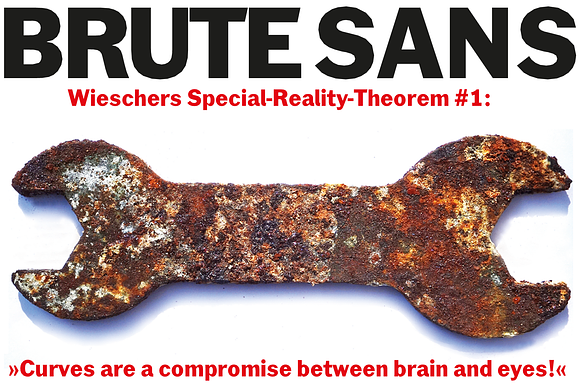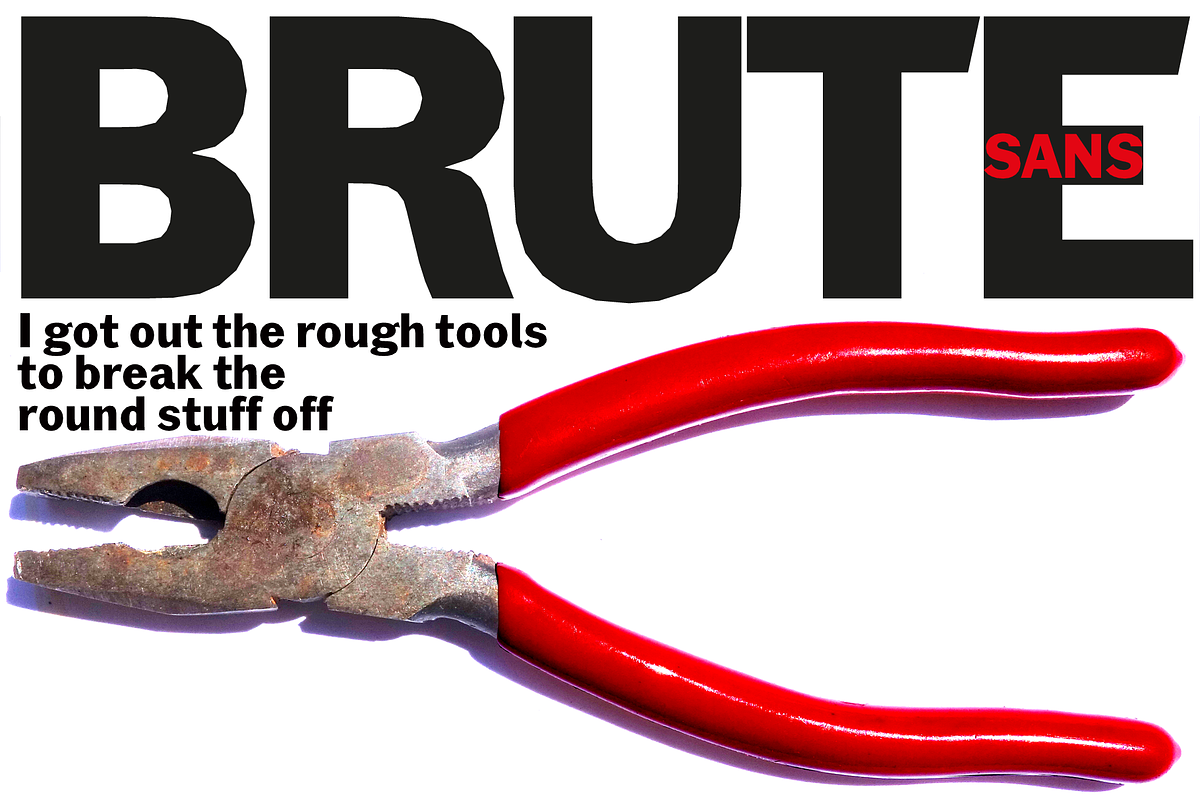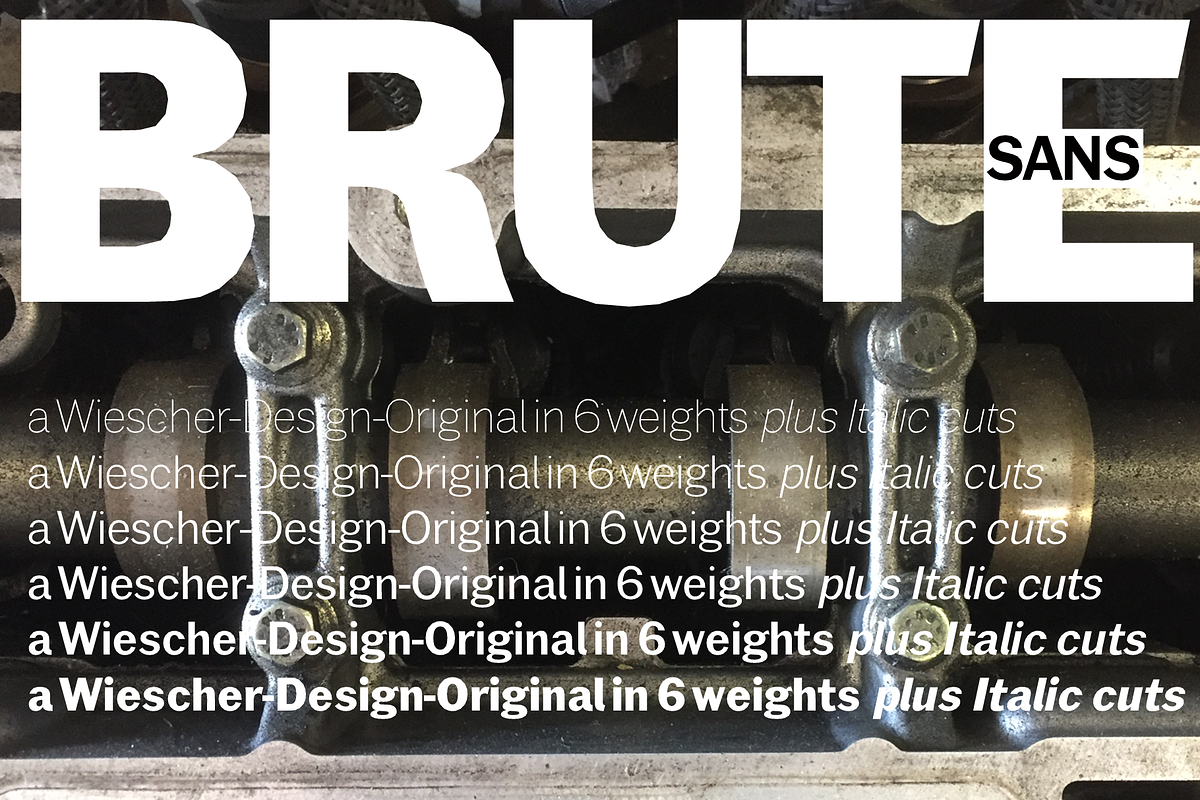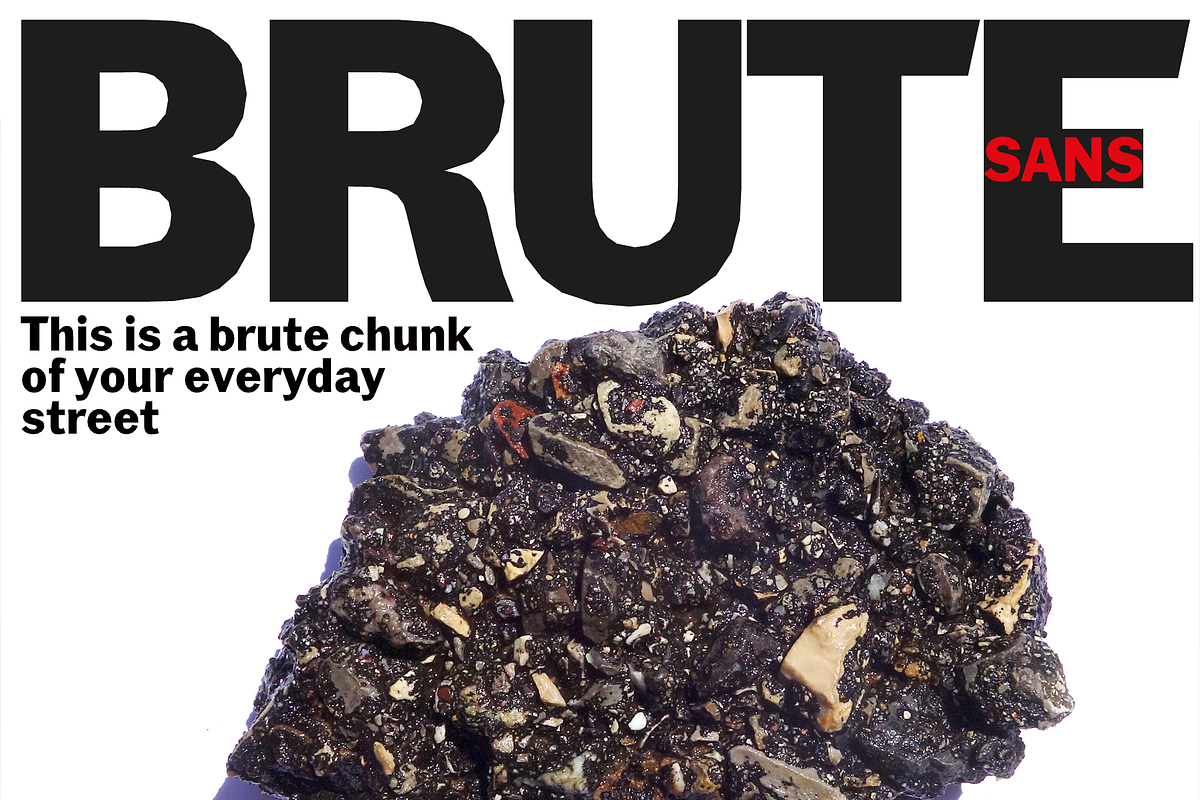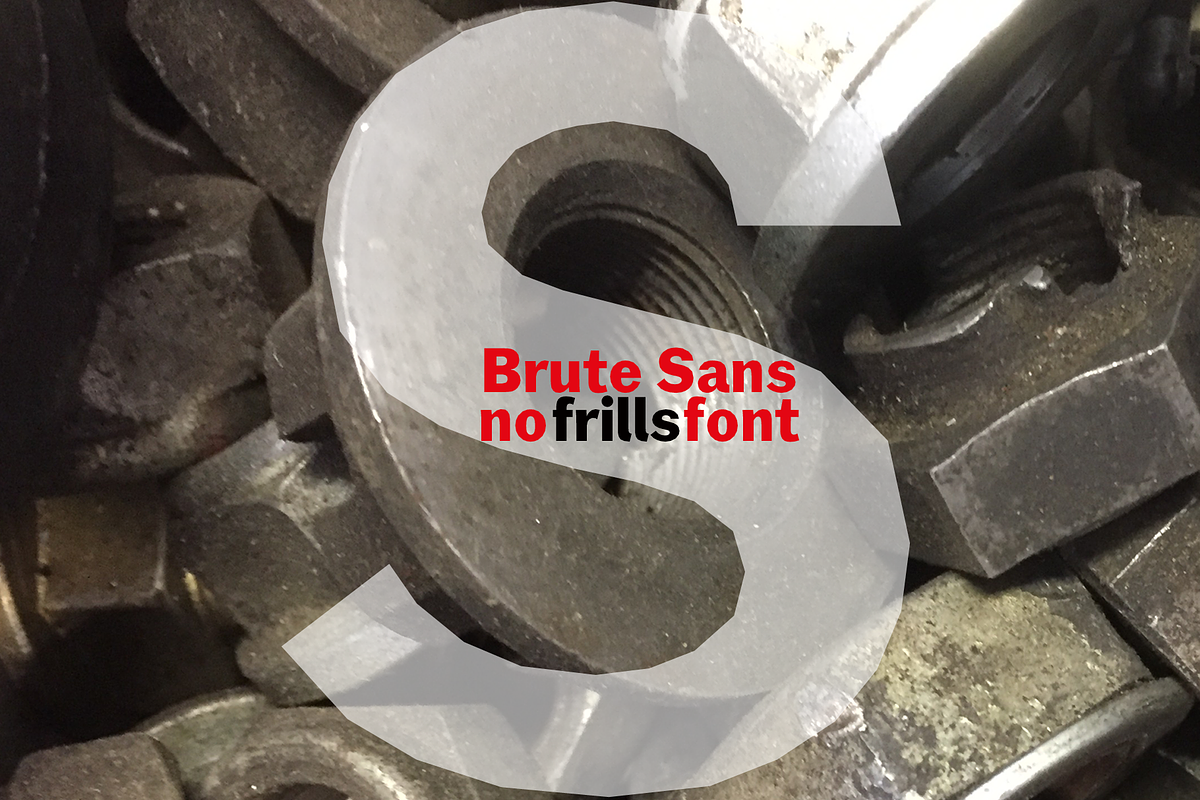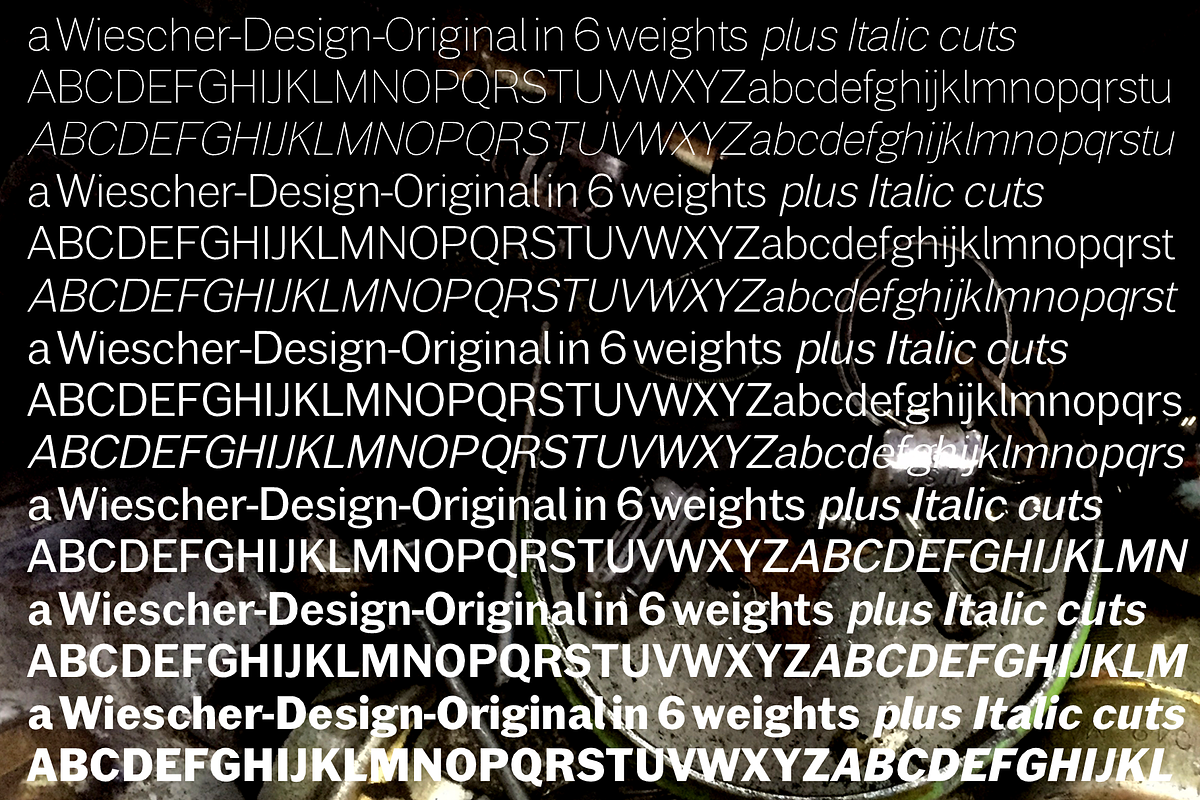
Brute Sans Font Packet
»Brute Sans« is a classic Sans typeface that looks like it has been designed with a chainsaw. »Brute Sans« looks really crude only in big sizes, the smaller the font gets the more it looks like any other Sans typeface. »Brute Sans« prints very fast, because there are no curves to compute, but that is just a side effect. »Brute Sans« is the typeface you should use if you need a really different look, since Sans typefaces tend by design to look very similar. This one is different. I always wanted to do this font, but then other projects crept up so I pushed »Brute Sans« to the end of the line. This packet contains 12 Opentype fonts and 12 webfonts. The low price is an introductory offer only and will expire in 2 weeks. If you want a really different Sans, get Brute Sans. Enjoy!